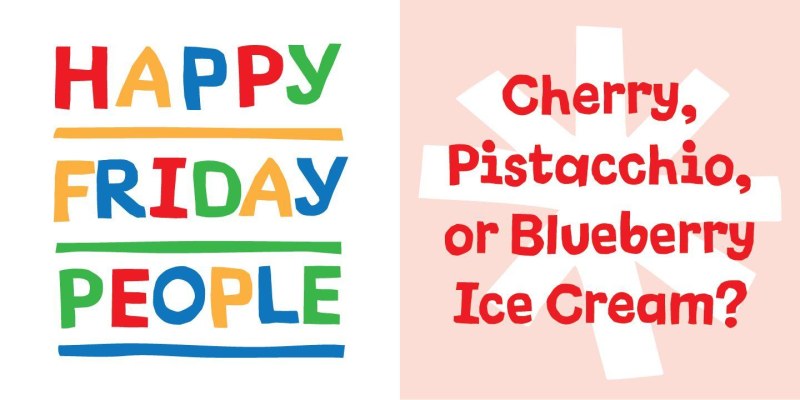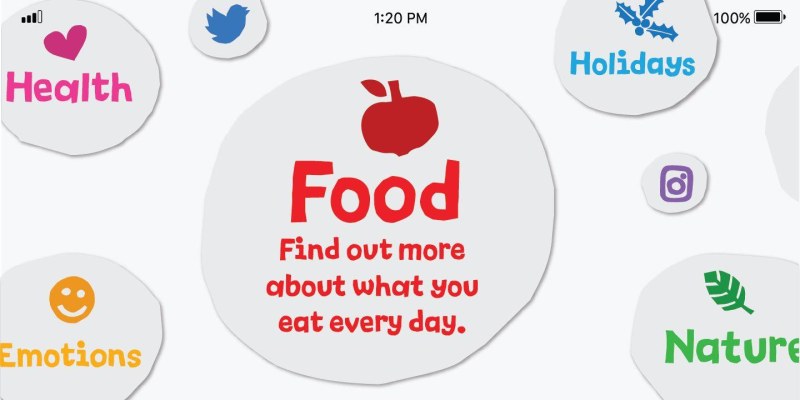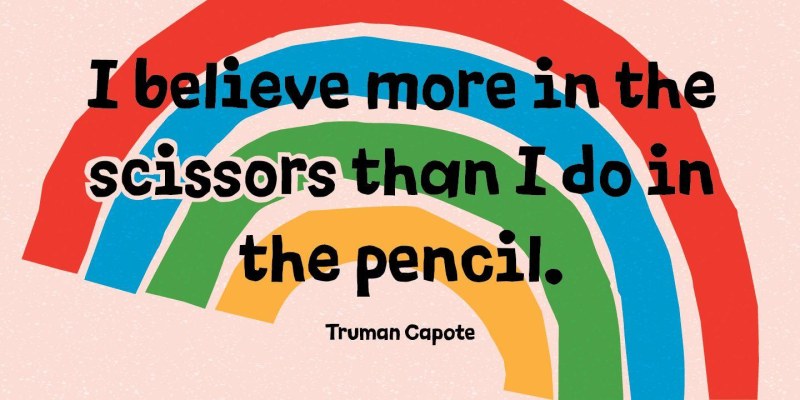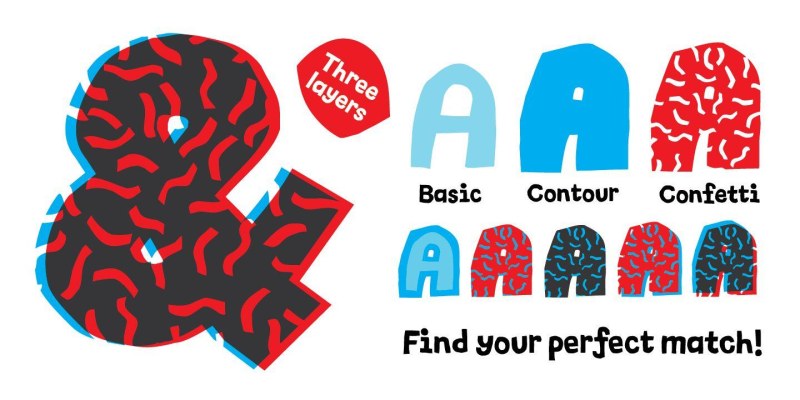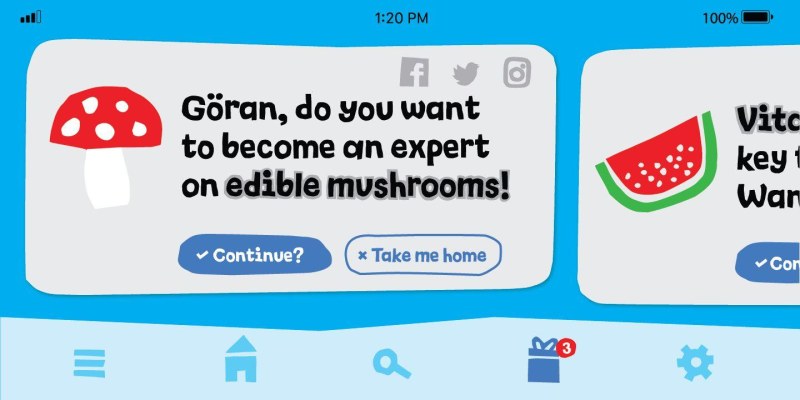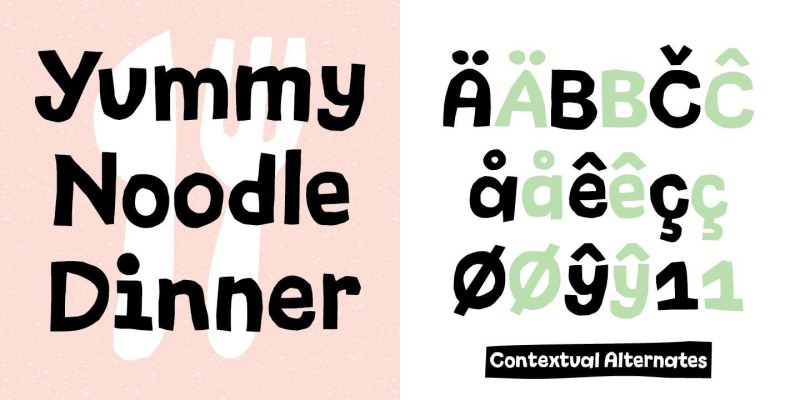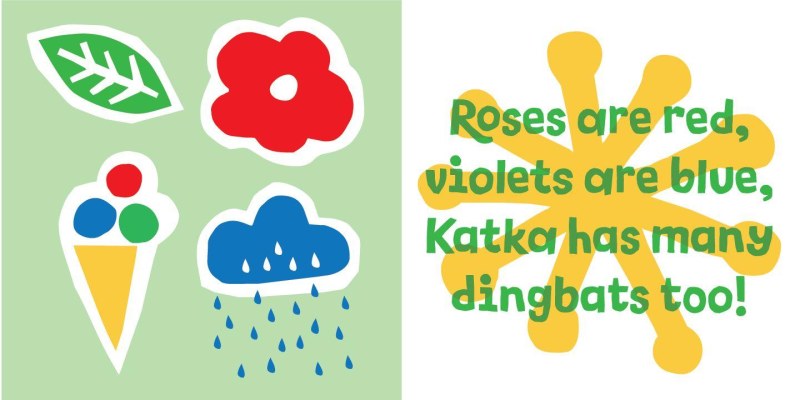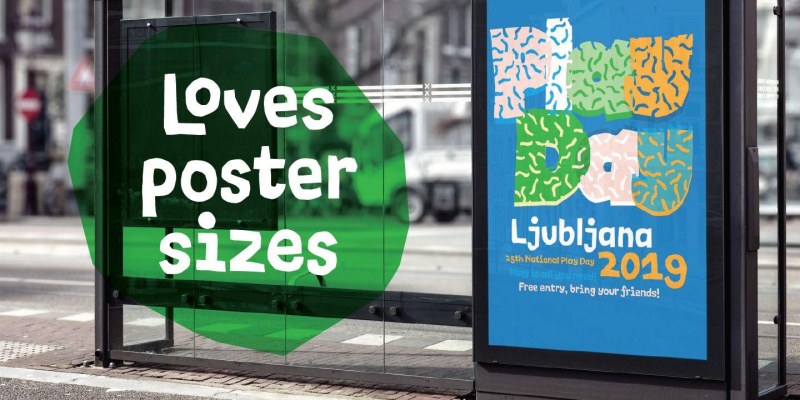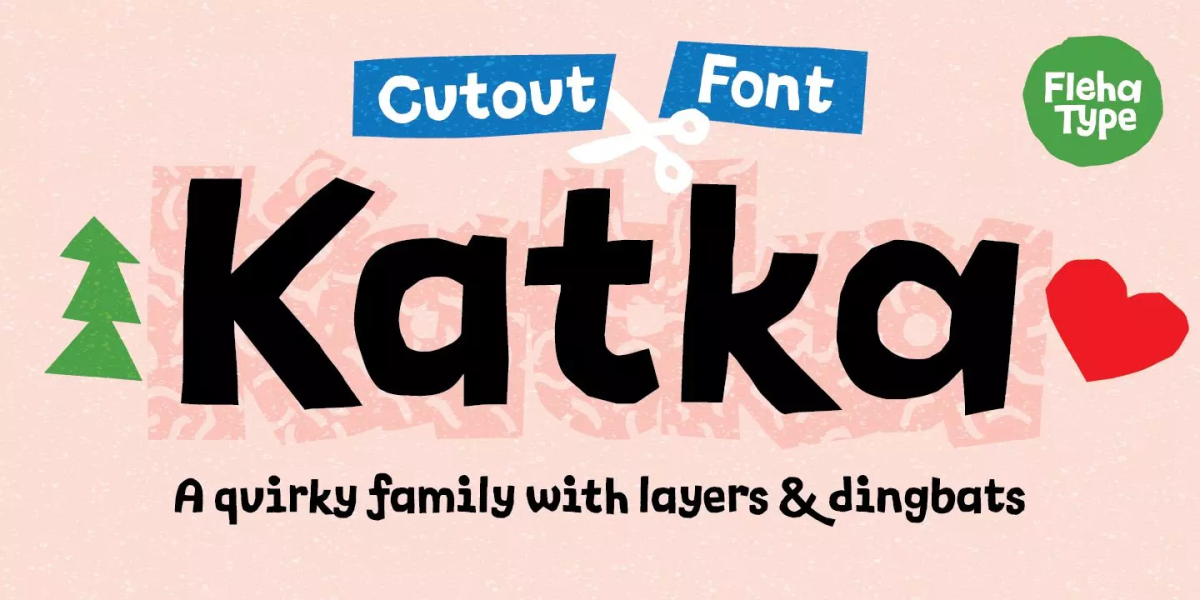
Katka Font Family
Katka is a informal playful typeface entirely cut-out of paper. With two stylistic variants for each letter it enables your text to appear hand-made. Three layers of the type family – Basic, Contour and Confetti – give its users plenty of opportunity for creativity. By making use of its dingbats and icons you can create distinctive user interfaces, social media campaigns or festive designs. Katka feels at home in branding projects, editorial use, children’s books and packaging.